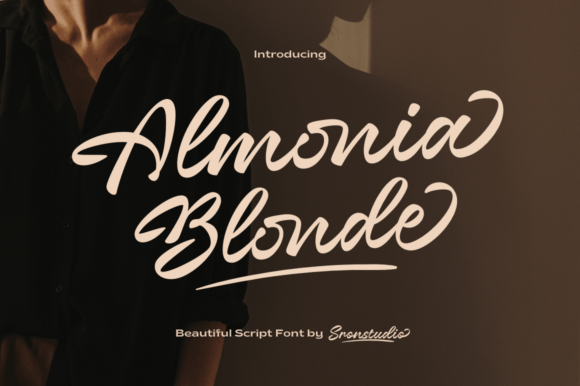
Introducing Almonia Blonde: The Elegant Script Font You Need
Have you ever been in the middle of a design project, and suddenly, you just can’t seem to find the right font? I know I have. It was a beautiful wedding invitation design project, and I was struggling to find a font that embodied elegance and sophistication. That’s when I stumbled upon “Almonia Blonde,” a stunning script font that instantly elevated my design to new heights.
The Perfect Blend of Elegance and Versatility
“Almonia Blonde” is more than just a font; it’s an experience. With its flowing, handcrafted lettering and versatile alternates, this font is perfect for adding a touch of sophistication to any project. Whether you’re designing wedding invitations, logos, or branding materials, “Almonia Blonde” provides a luxurious and artistic flair that will make your creations stand out.
So, what do I love about “Almonia Blonde”? Here are a few things that make this font truly special:
- ✨ Elegant and sophisticated design that’s perfect for high-end projects
- ✅ Highly versatile with multiple alternates and OpenType features
- 💫 Beautifully crafted with attention to detail and a personal touch
- 📚 Extensive character set that includes support for multiple languages
- 🤔 Some users may find the font a bit challenging to read at smaller sizes
- ⚠️ Limited availability of certain characters, such as ligatures
The Story Behind Almonia Blonde
The story behind “Almonia Blonde” is one of passion and dedication. According to the designer, the font was inspired by the beauty of handwritten lettering and the need for a more elegant and sophisticated script font. The designer spent countless hours crafting each letter and alternate to create a truly unique and luxurious font.
| Font Name | Almonia Blonde Font |
| Author | Sronstudio |
| What is the best use for Almonia Blonde? | “Almonia Blonde” is perfect for high-end branding, wedding designs, and luxury packaging. |
| Is Almonia Blonde suitable for body text? | While “Almonia Blonde” is a beautiful font, it’s best used for headlines and titles. It may not be suitable for body text due to its elegant and cursive nature. |
| Is Almonia Blonde available in different weights? | Currently, “Almonia Blonde” is available in a single weight. However, the designer may release additional weights in the future. |
In conclusion, “Almonia Blonde” is a stunning script font that embodies elegance and sophistication. With its flowing, handcrafted lettering and versatile alternates, this font is perfect for adding a touch of luxury to any project. Whether you’re a designer, crafter, or creative hobbyist, “Almonia Blonde” is sure to elevate your designs to new heights.